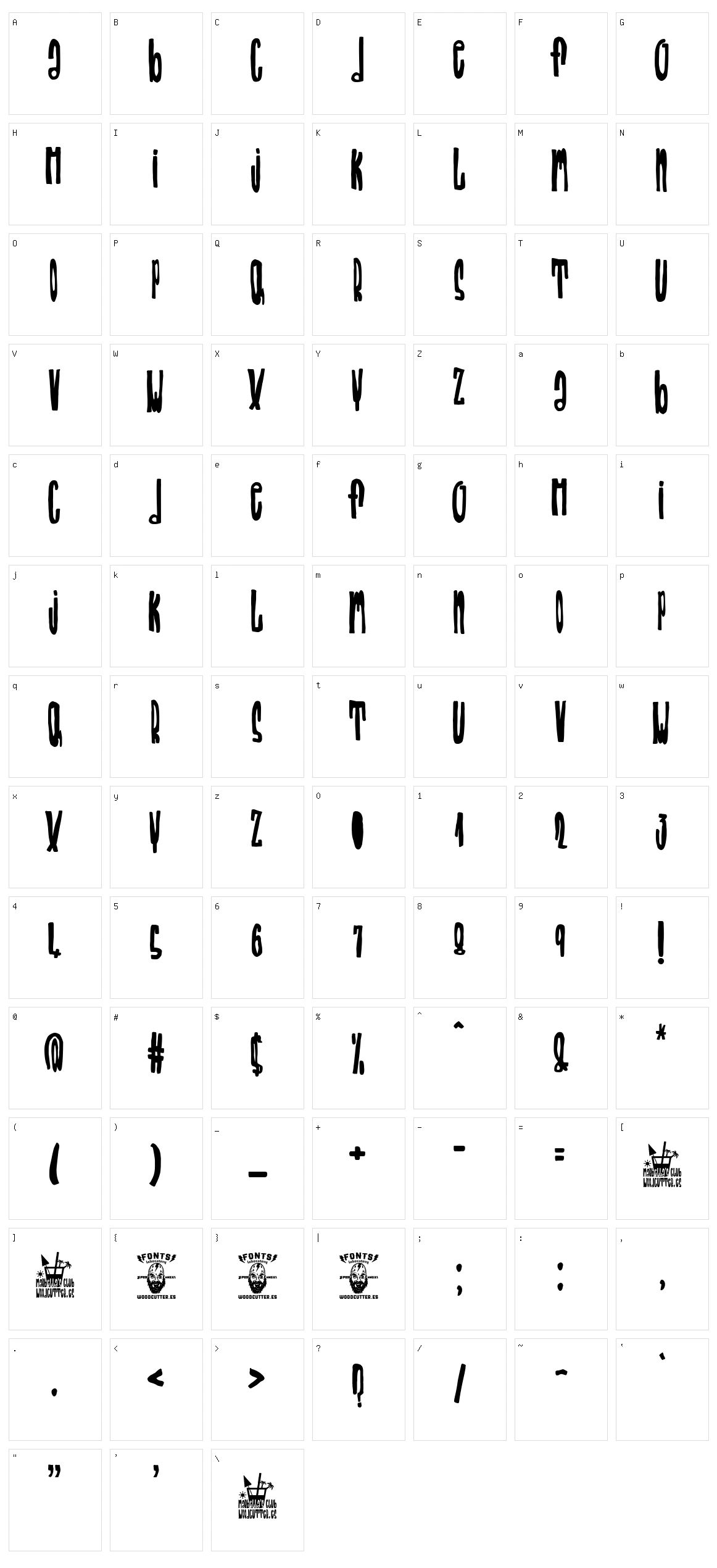
The free font Marbella's Club is carefully designed by Woodcutter, showcasing a thoughtful balance of creativity and usability and falls under the Cartoon font style. When you download the ZIP file, it contains only 101.04 KB of font files, making it lightweight and quick to download. Please review the license details below to understand permitted usage and distribution rights. If license information is not available, we recommend using this font for personal projects only or contacting the author directly for commercial usage permissions.